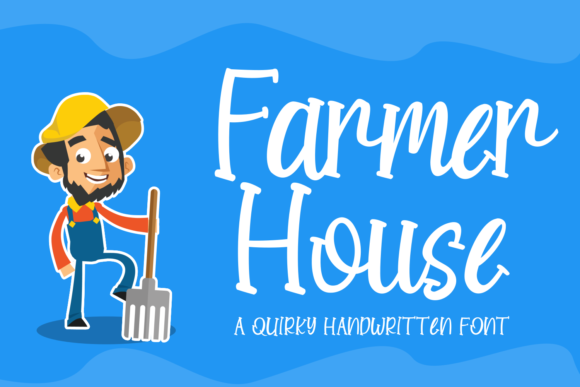
Behold, Farmer House Font - A Typographic Symphony of Delight, Whimsy, and Genuine Charm!
In the realm of digital artistry, where fonts reign supreme as the architects of expression, Farmer House Font emerges as a captivating script, a visual masterpiece that dances across the screen with an infectious energy. Its playful strokes and exuberant curves evoke a sense of childlike wonder, inviting you to embark on a creative journey where imagination knows no bounds.
With Farmer House Font as your trusty companion, transform your designs into captivating works of art. Picture a whimsical flyer that bursts with life, its words dancing in harmony, each letter a tiny masterpiece. Its enchanting aura will cast a spell on your audience, drawing them into the captivating world you've created. Unleash your inner artist and let Farmer House Font guide you towards typographic greatness.
Crafted by the visionary minds at Rvandtype, Farmer House Font is more than just a collection of letters; it's an expression of pure joy, a celebration of creativity. Its very essence embodies fun, quirkiness, and authenticity, ready to infuse your designs with an irresistible charm. Witness the transformation as ordinary words morph into captivating melodies, each stroke a testament to the power of imagination.
Step into a world where creativity thrives, where Farmer House Font becomes your trusted ally in crafting designs that resonate with your audience. Let its playful spirit ignite your imagination and watch as your creative endeavors blossom into masterpieces. Embrace the magic of Farmer House Font today and unlock a world of endless possibilities, where every design tells a story and every word carries a spark of delight.
So, seize this opportunity to elevate your designs to new heights with Farmer House Font. Let its playful charm and authentic style captivate your audience, leaving them enchanted by the sheer brilliance of your creations. Embrace the power of typography and experience the transformative magic of Farmer House Font. The world of design awaits your artistry - let Farmer House Font be your muse.